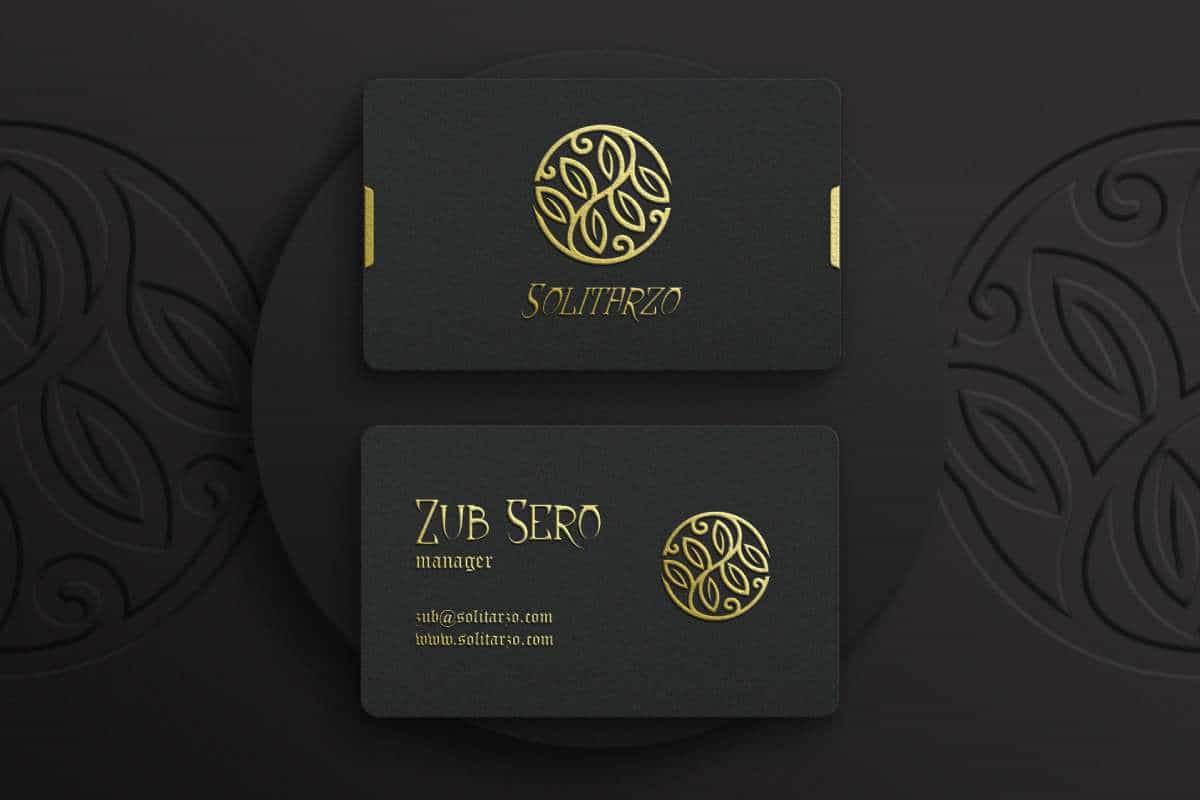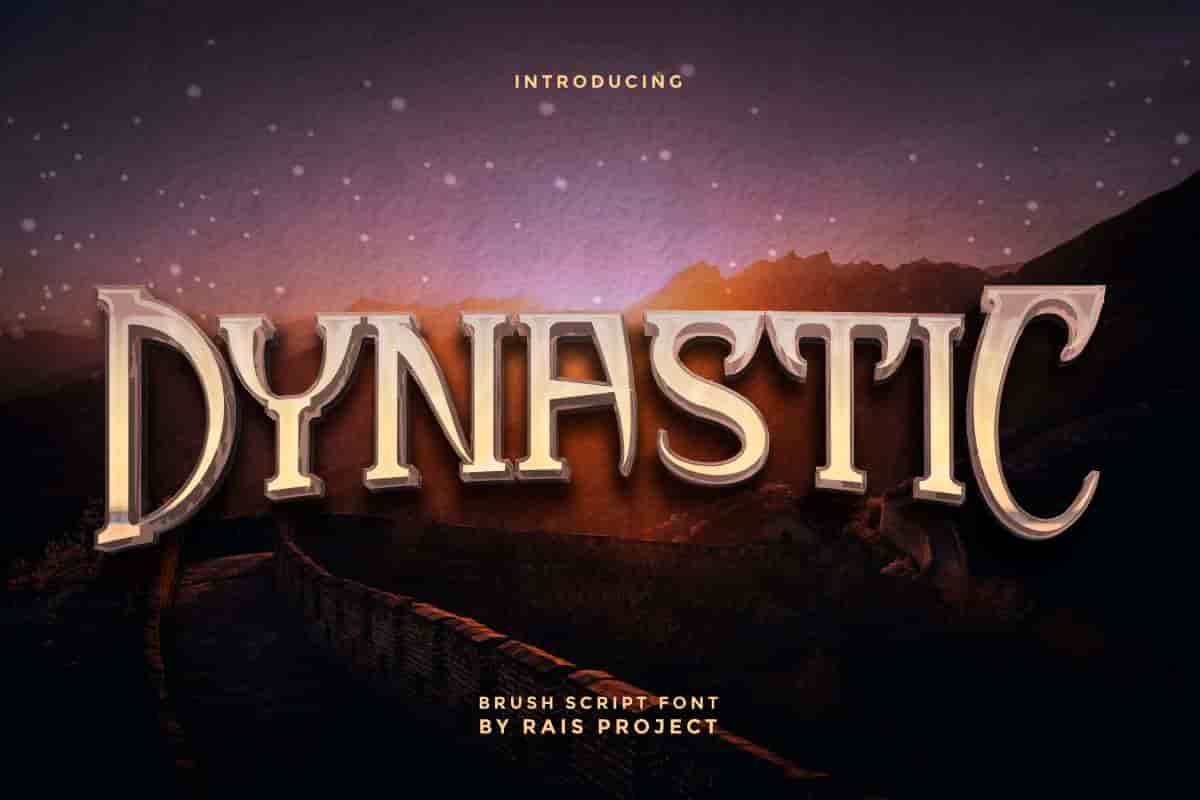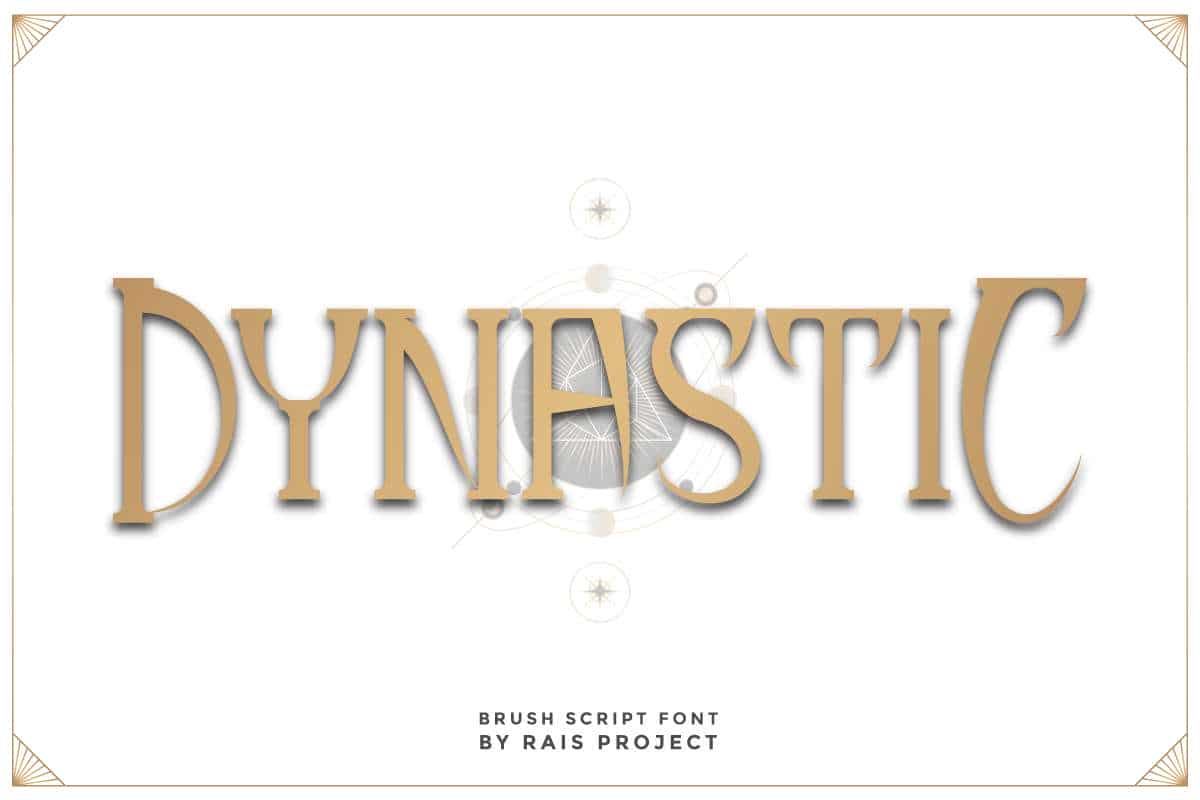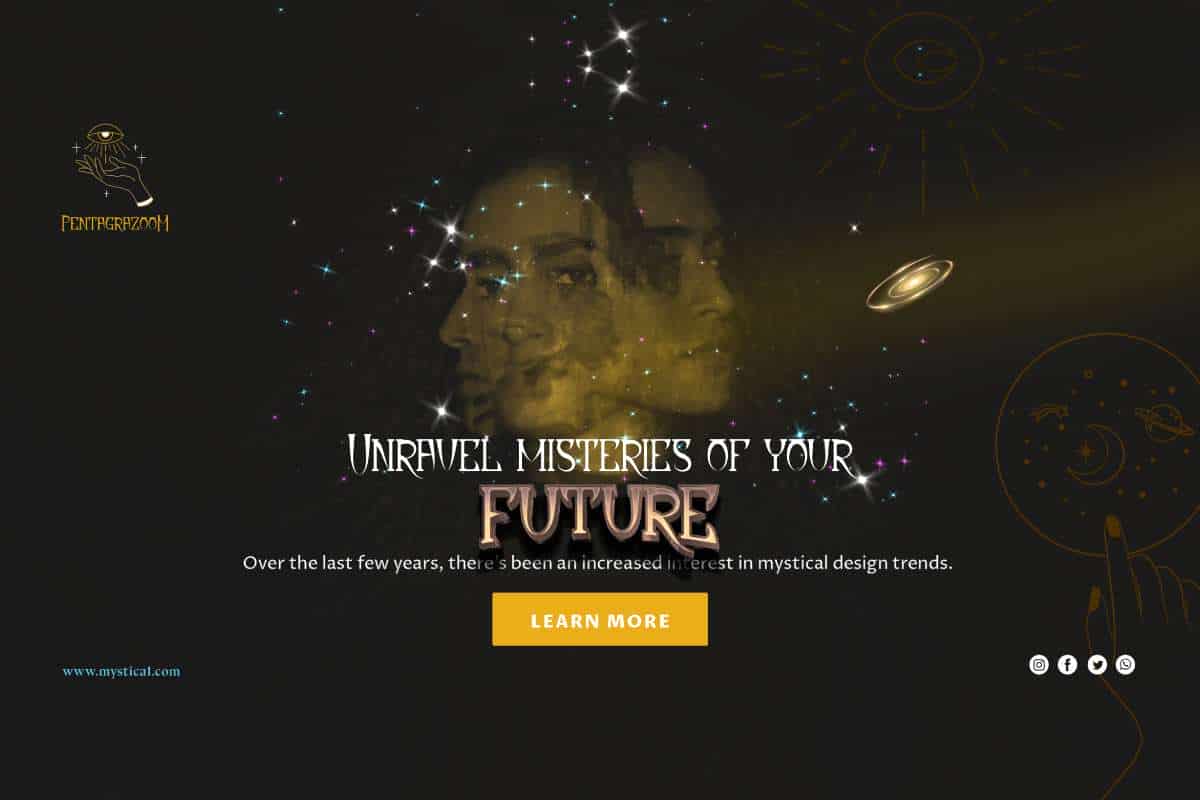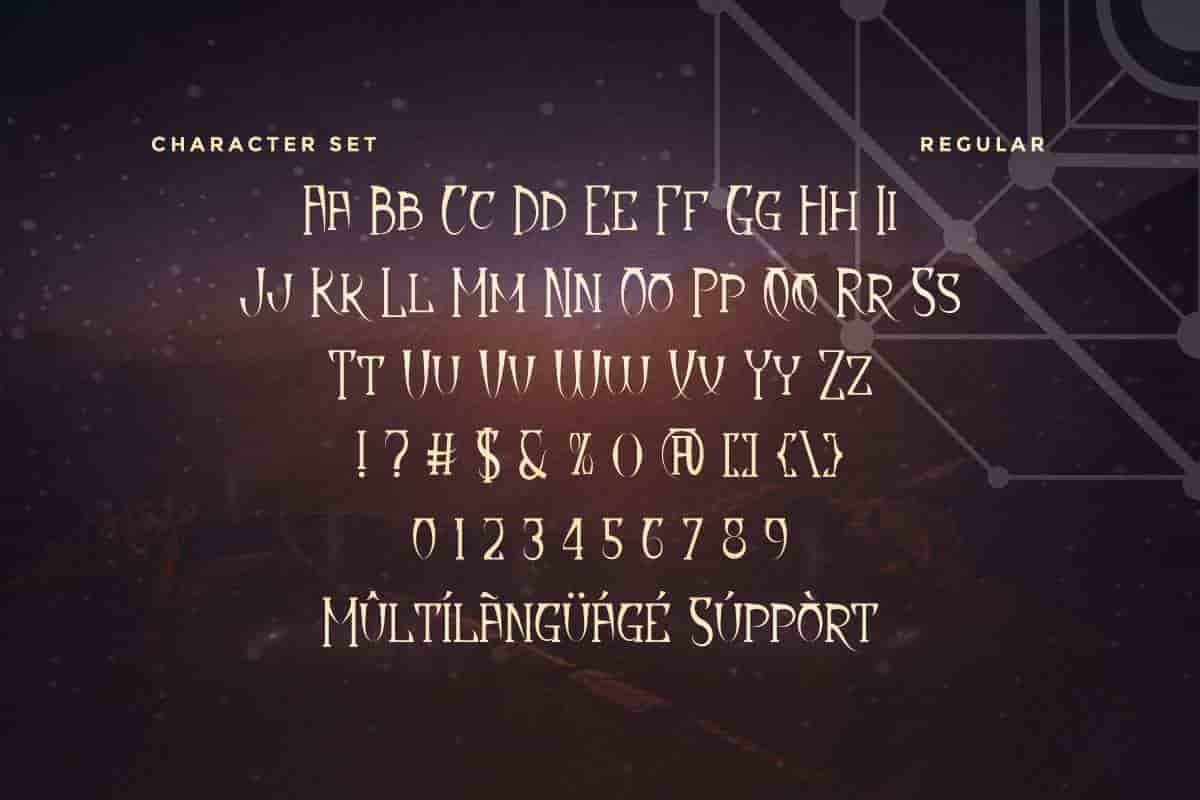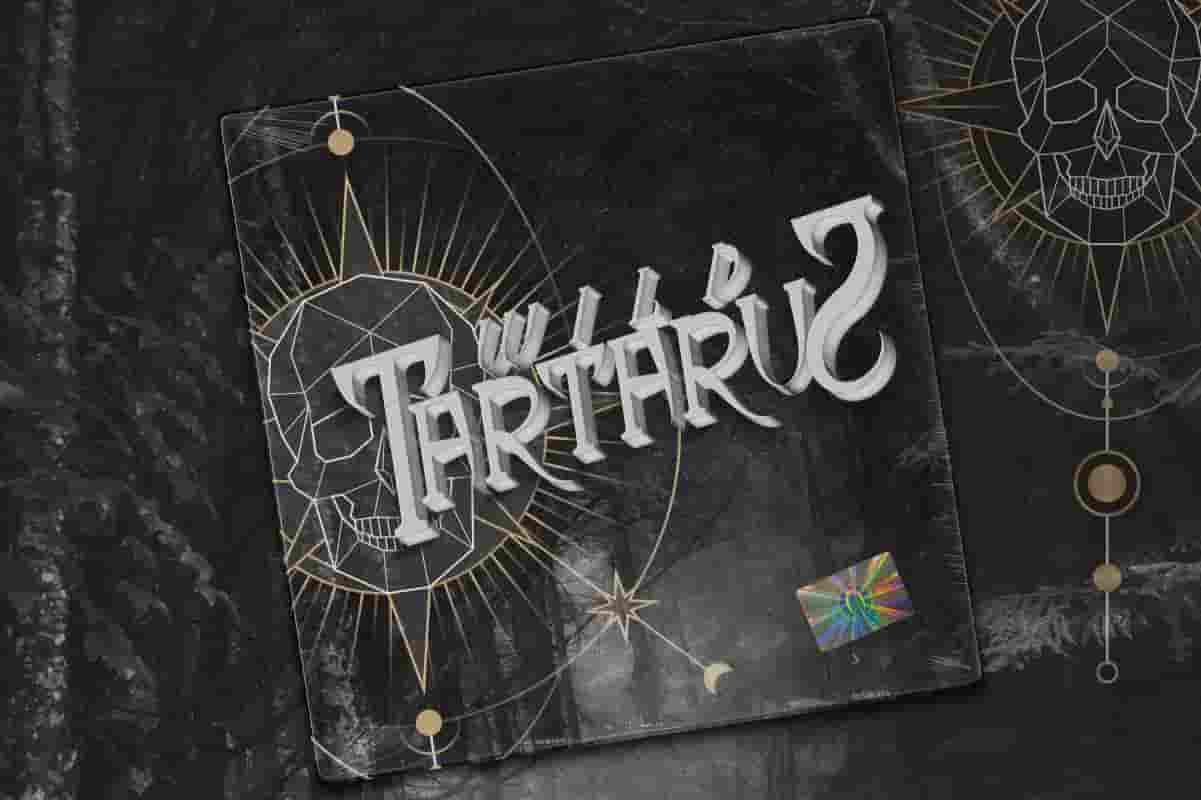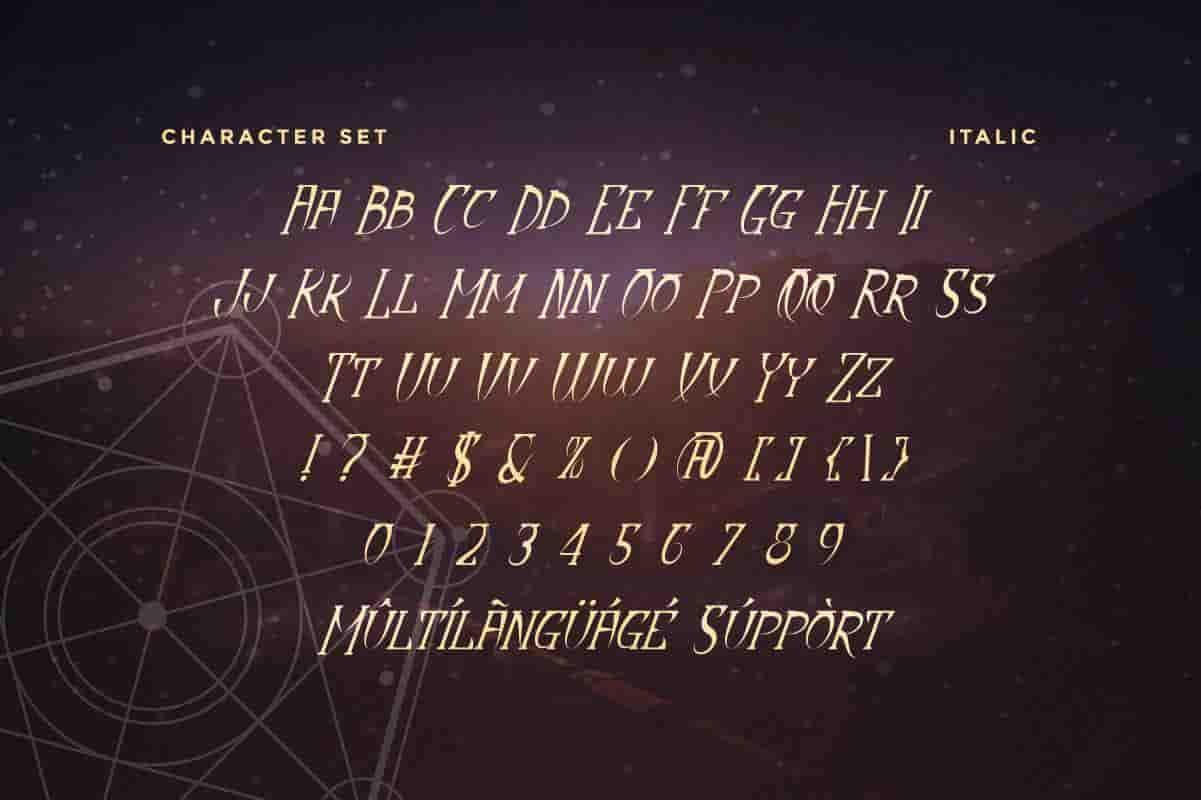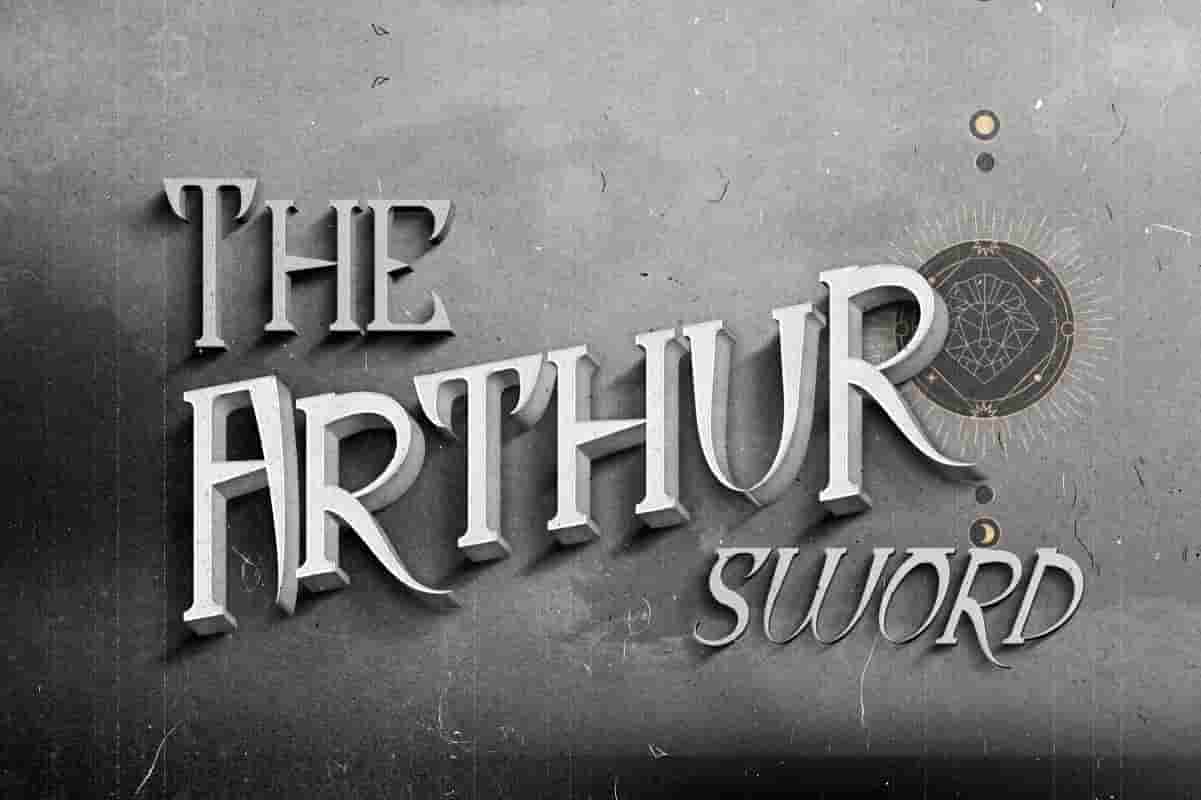
Dynastic Sans Serif Font
Dynastic Font is a classic display decorative sans serif font family, designed by Rais Project. The font has style that is inspired from old War kingdom era with sharp edges and masculine look . It will be great for Games, Movie, Music, events, Cafe, Branding etc
Dynastic Font  a classic display Sans Serif font designed by RaisProject inspired from many kingdom and war era.  You can see the demo font below. You can also input any word you want so you can see what it will look like :